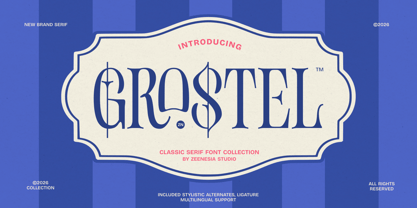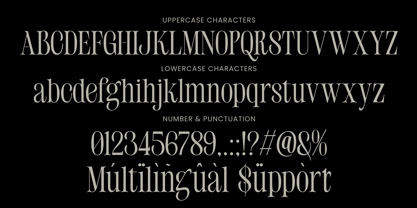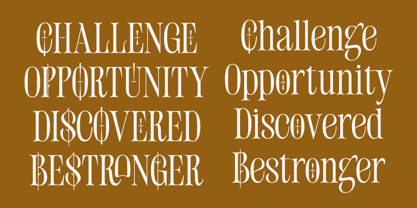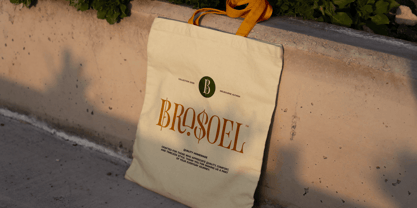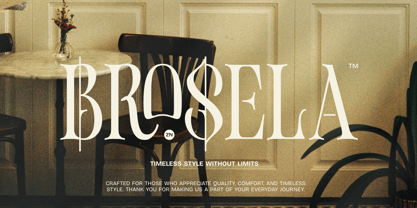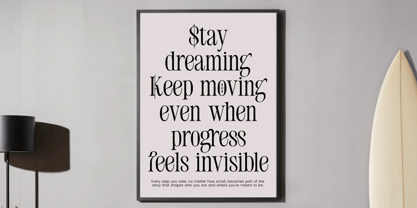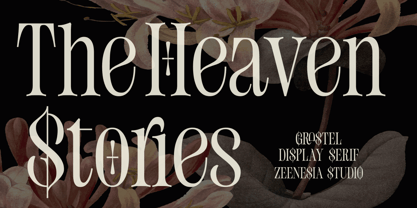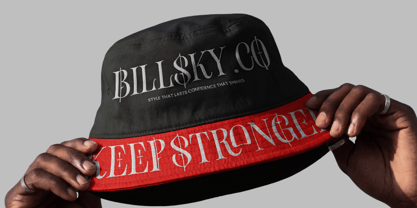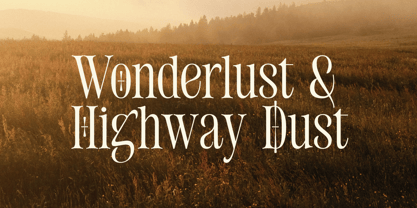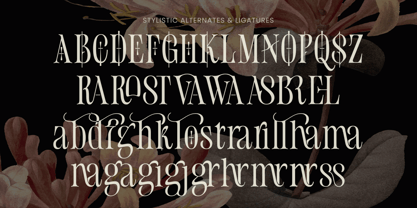
Grostel
by Zeenesia Studio
The Grostel Font Family was designed by Doni Purwoko and published by Zeenesia Studio. Grostel contains 1 styles. More about this family
Grostel – Classic Serif Font Collection
Grostel is a timeless display serif that blends classic elegance with contemporary sophistication. Crafted with refined high-contrast strokes, graceful curves, and beautifully sculpted serifs, Grostel delivers a luxurious presence that instantly elevates any design.
Inspired by traditional editorial typography and premium fashion branding, every letter has been carefully designed to create a distinctive visual identity. The collection also includes stylish alternate characters and elegant ligatures, allowing you to create unique and expressive typography with ease.
Whether you're designing a luxury logo, editorial headline, cosmetic packaging, wedding stationery, or premium branding, Grostel offers the perfect balance between classic charm and modern aesthetics.
Designers: Doni Purwoko
Foundry: Zeenesia Studio